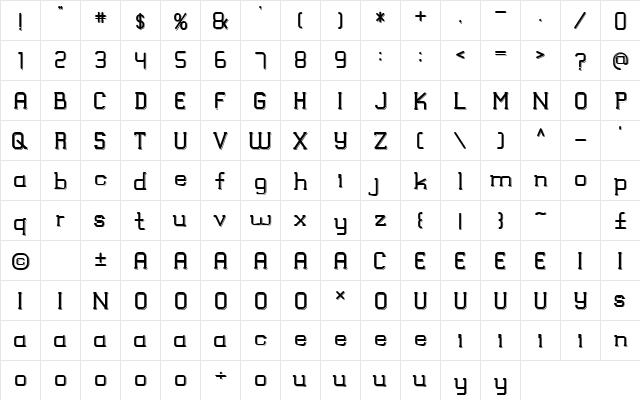
TRUMANS Shadow
| Foundry | Edric Studio |
| Designer | Deyan |
Design Context for TRUMANS Typeface
TRUMANS is built around its visual character rather than neutral utility — its distinctive forms are designed to make an impression at display sizes.
Font Pairing: Pair with a clean neutral sans-serif for body copy to let TRUMANS's character lead without overwhelming the composition.
Pro Tip: Treat TRUMANS as the centrepiece of your typographic hierarchy. One strong heading set in a decorative face can carry an entire layout.